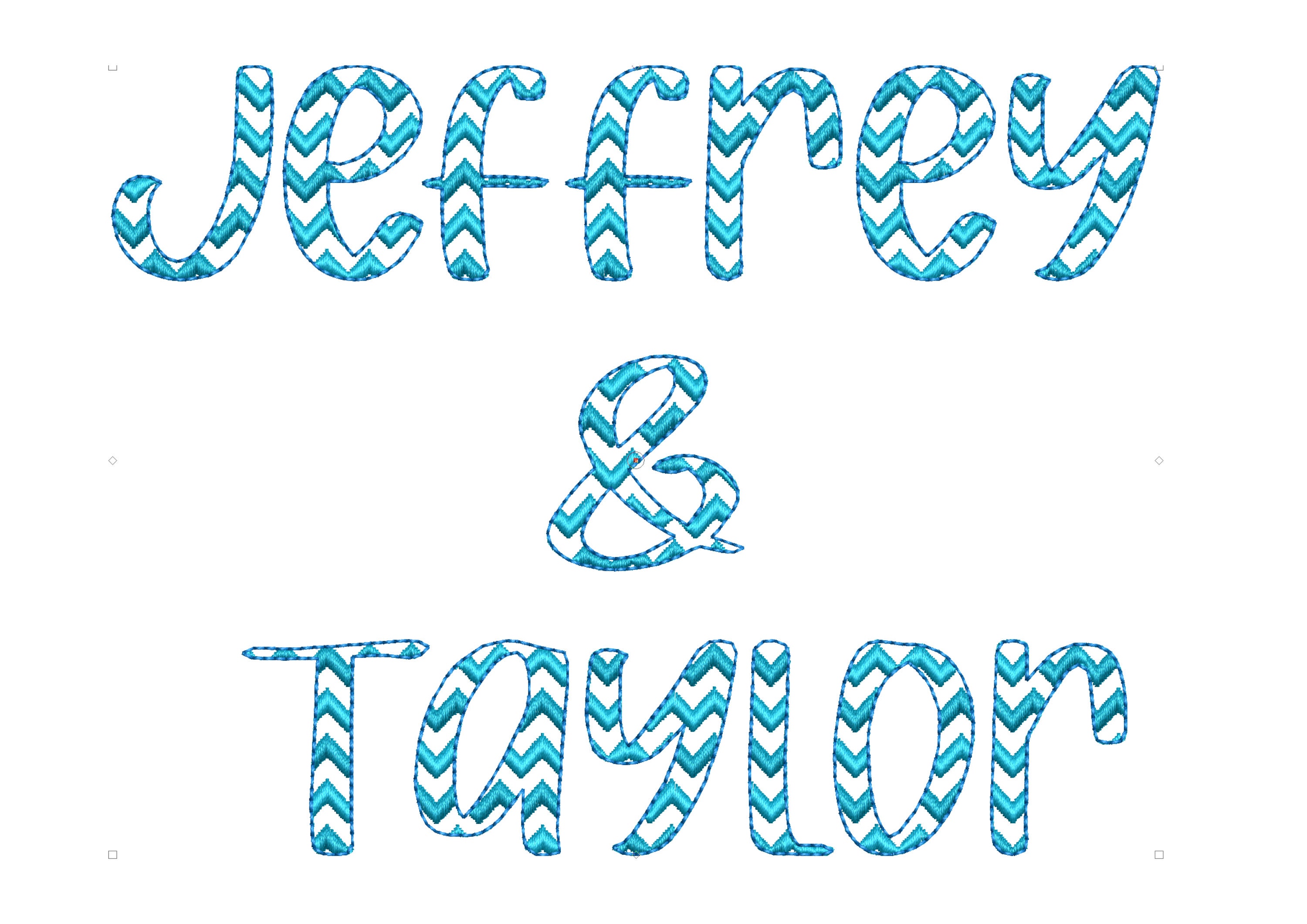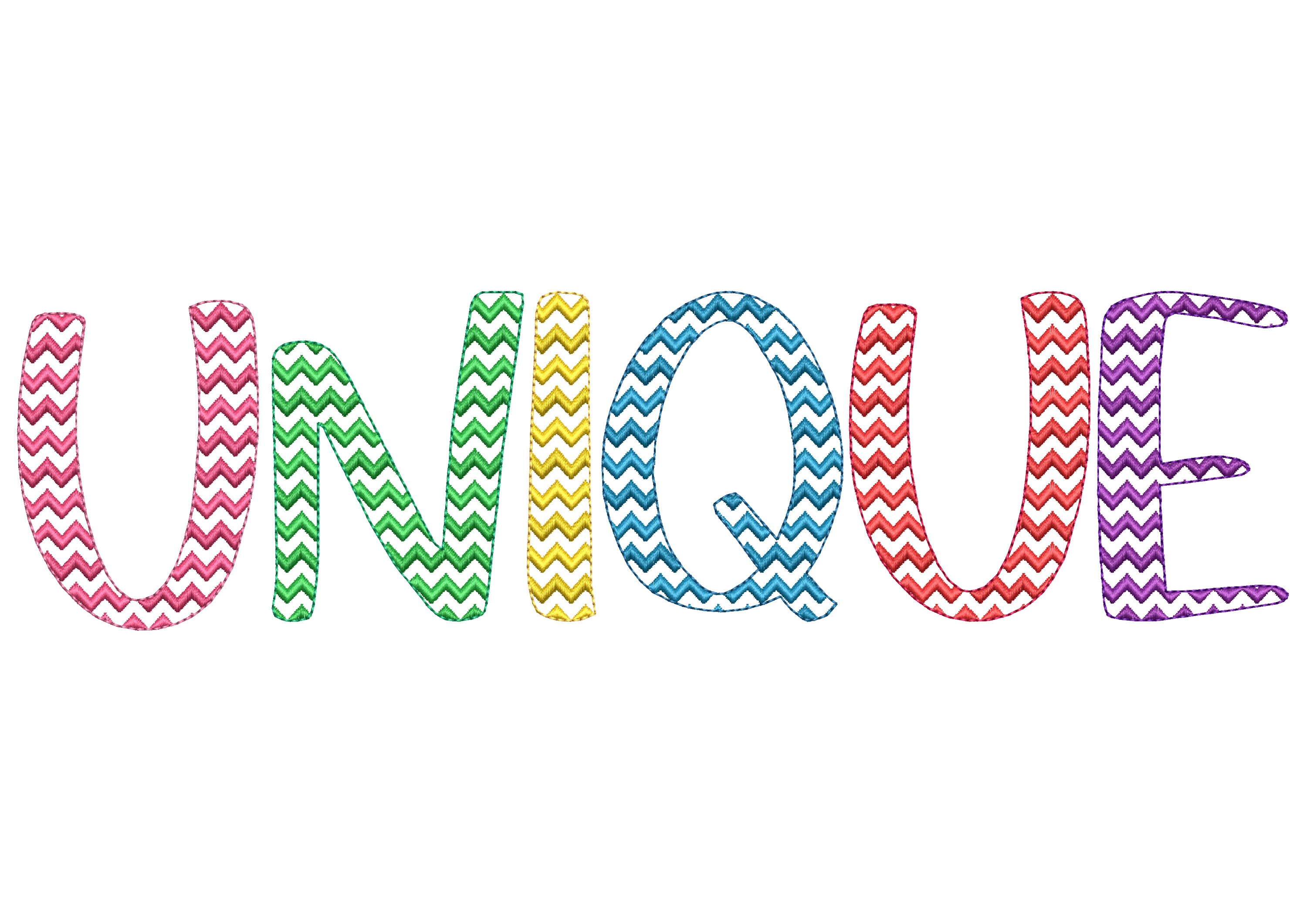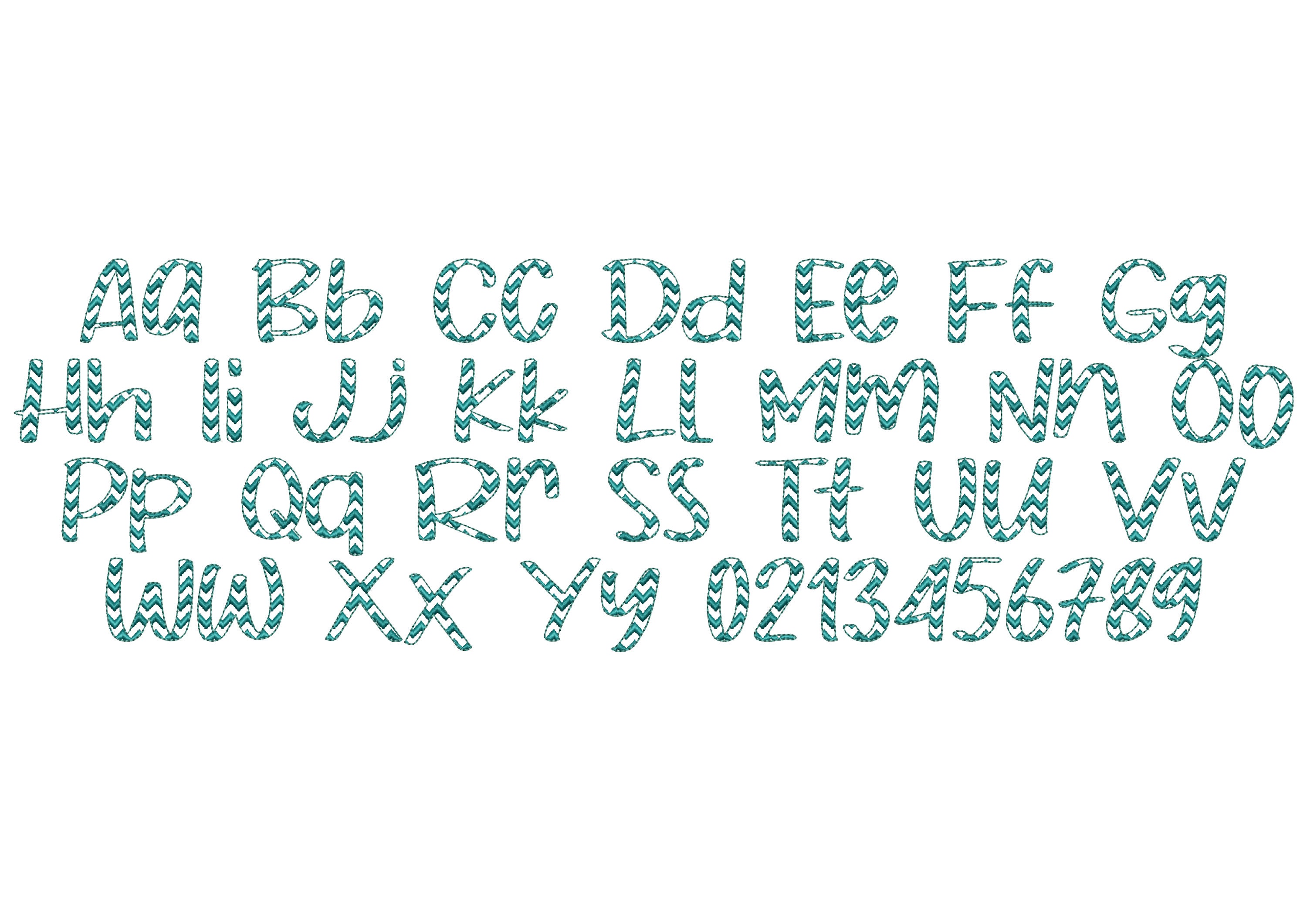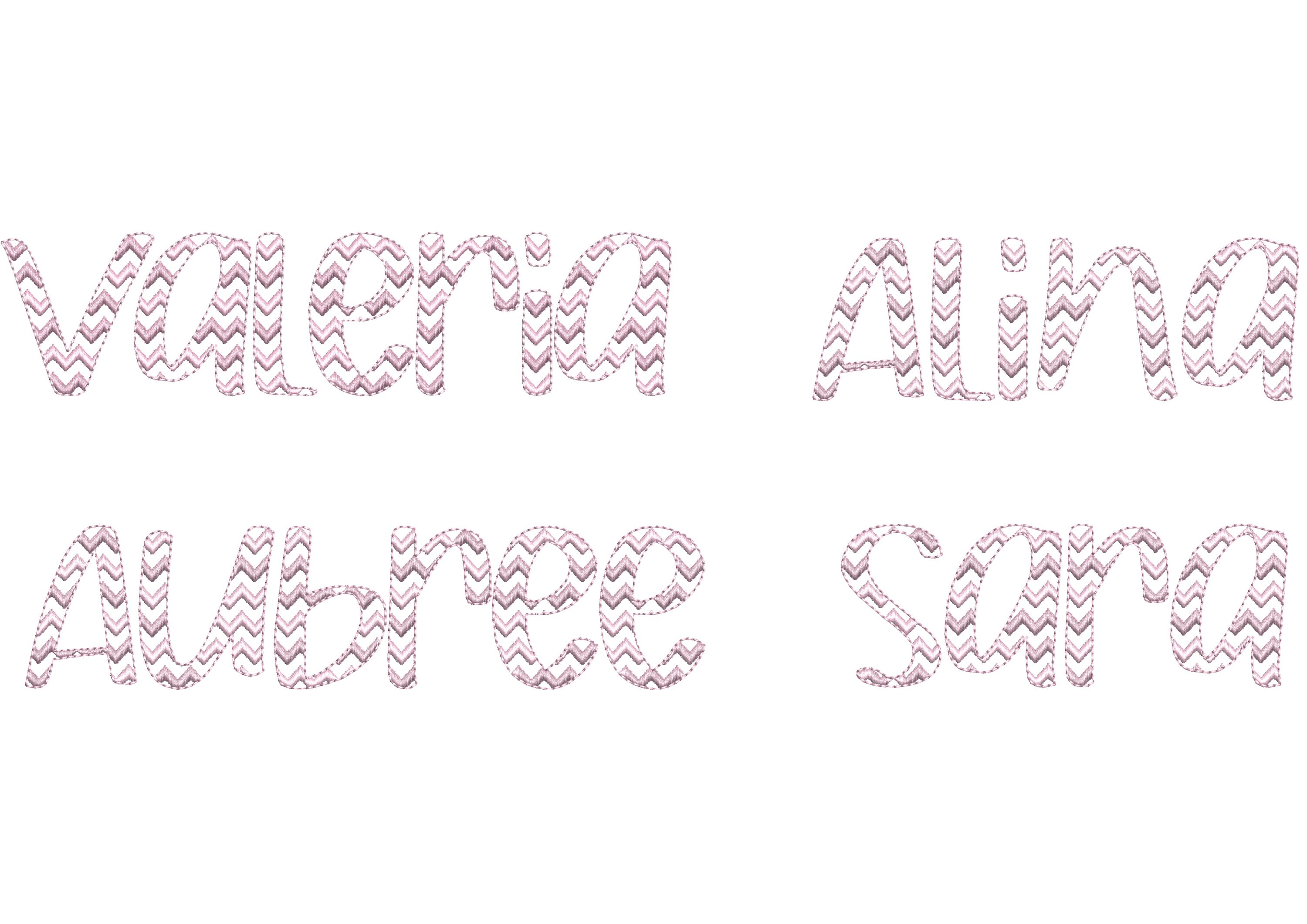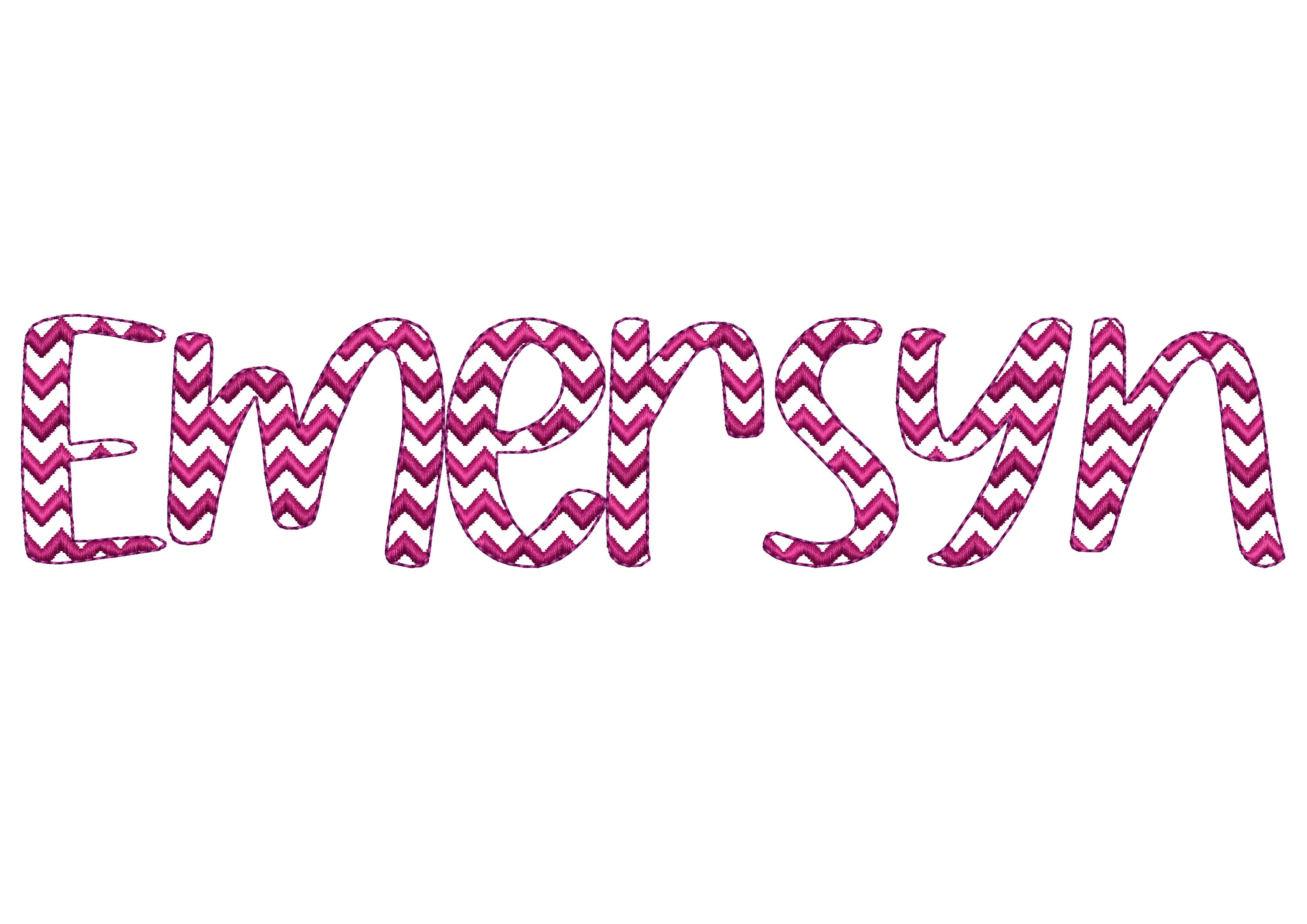
Zigzag ric rac Chevron Handwritten style Font alphabet letters machine embroidery designs mini sizes from 1.3 thru 3.7 inches kids name BX included
Uppercase and lowercase letters, and numbers.